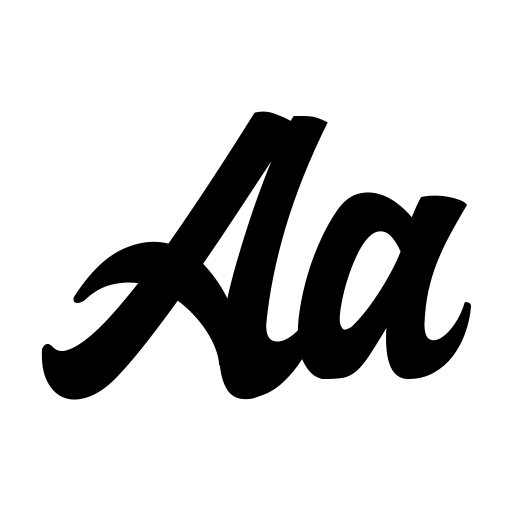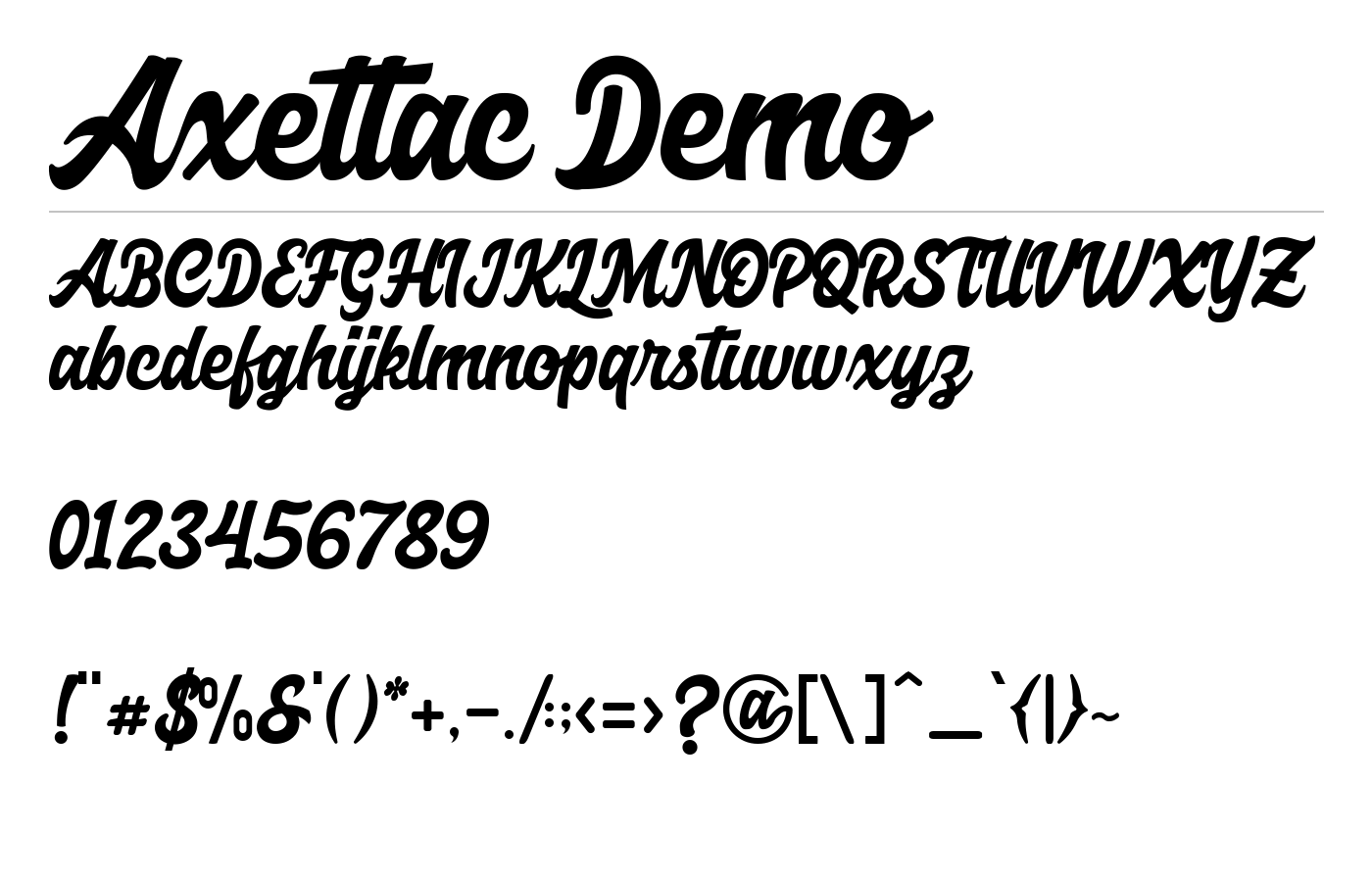
Axettac Demo is a bold, script-style font with smooth, flowing curves that give it a lively and friendly personality. Its moderately condensed letterforms and high contrast between thick and thin strokes create a dynamic, hand-lettered feel, making it ideal for eye-catching headlines, logos, and branding that seek a vintage yet energetic vibe. This font works particularly well in creative, casual, and lifestyle contexts where a warm, approachable touch is desired.
Axettac Demo Font